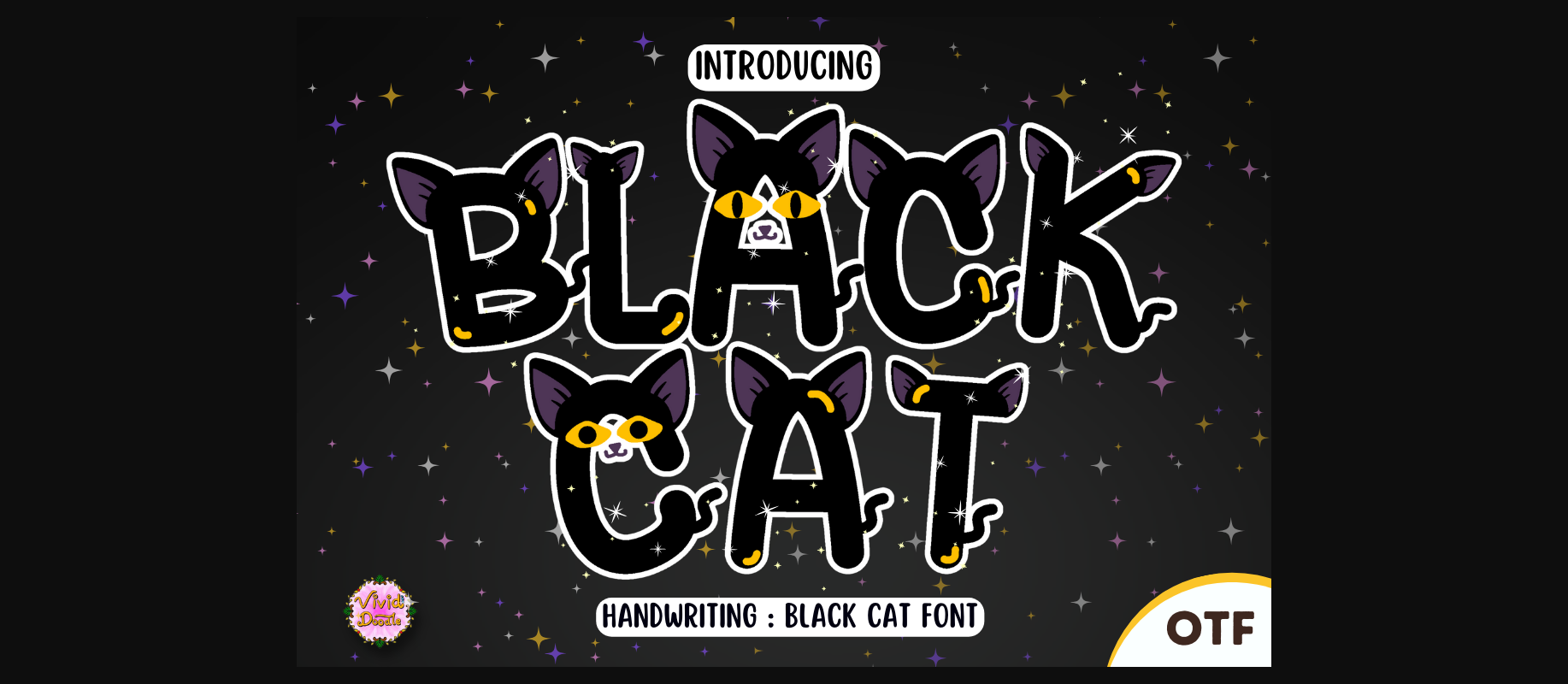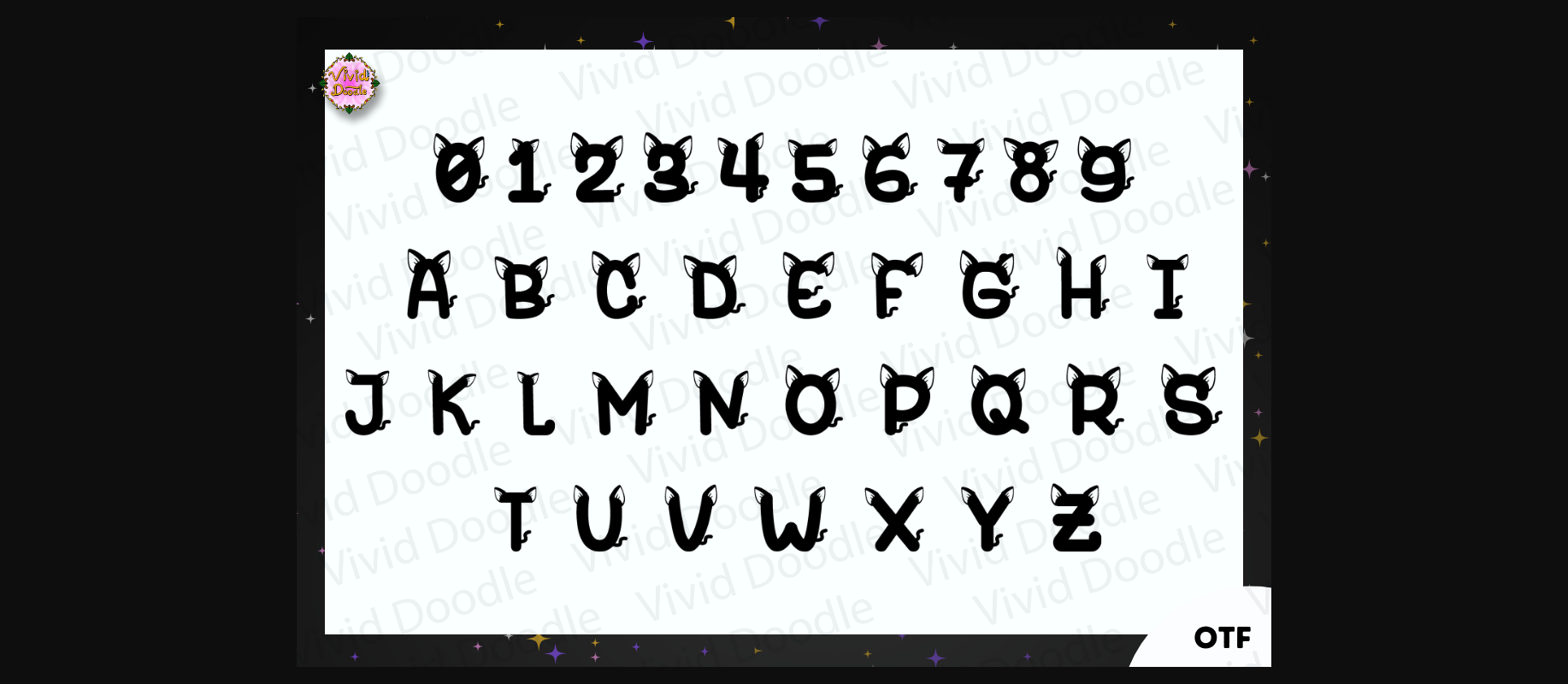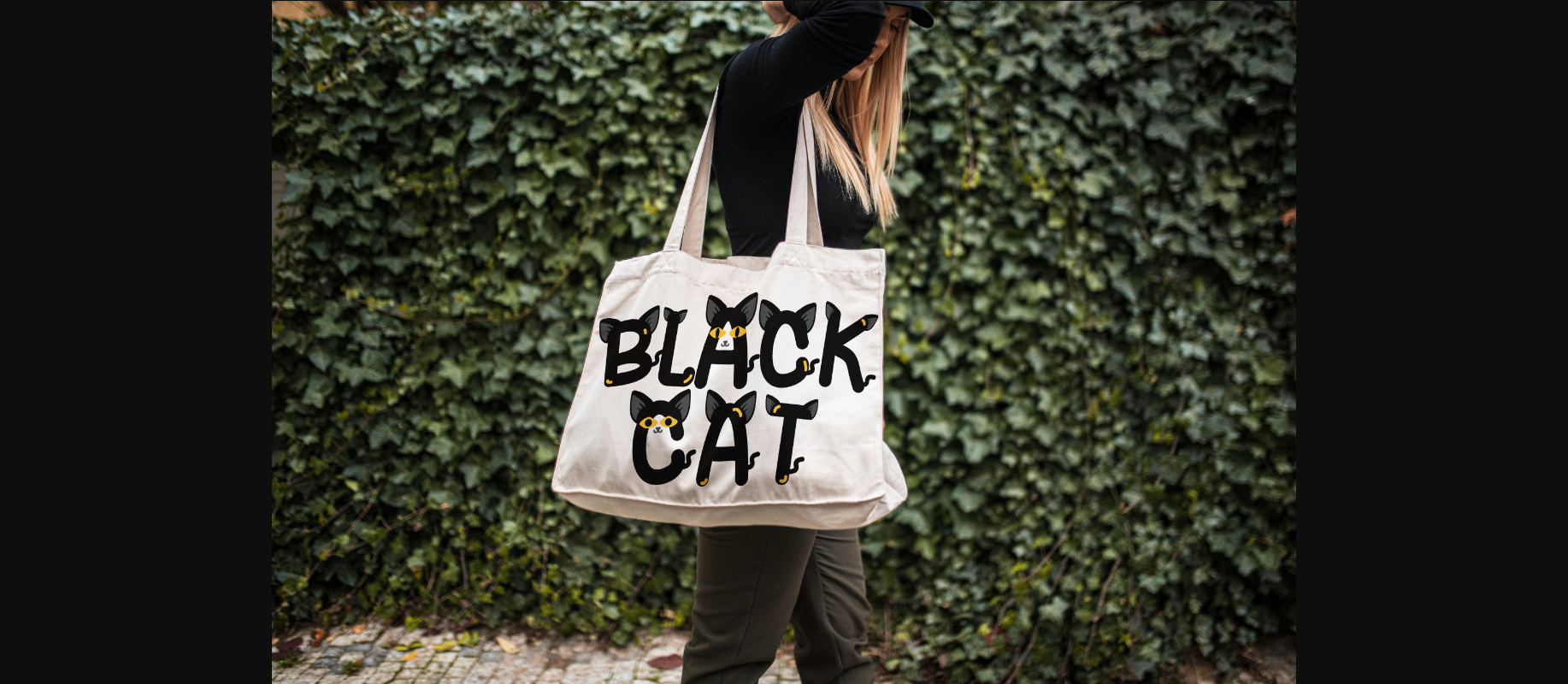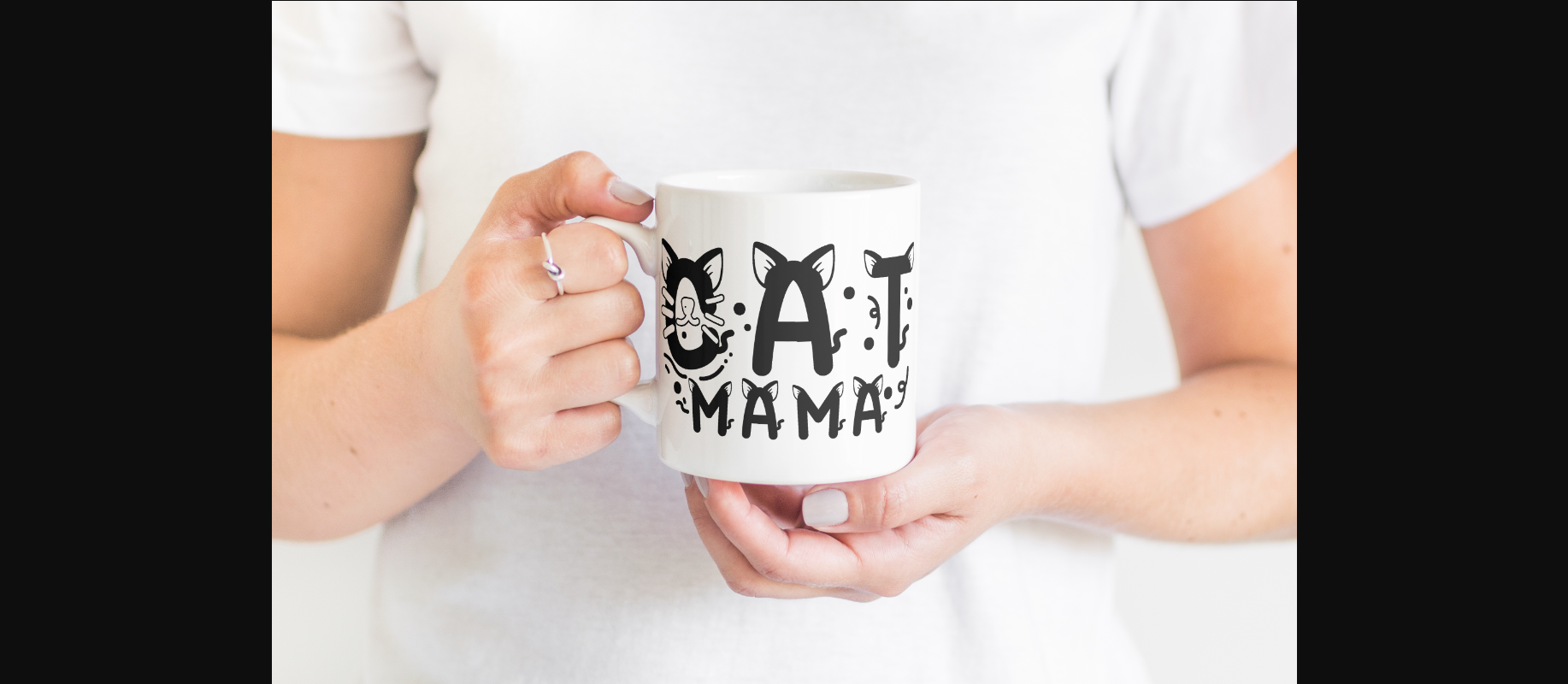
About Black Cat Font
Meet Black Cat, the cutest decorative font around! This playful typeface comes with adorable cat ears and a sweet little tail, adding a touch of charm to your projects. Perfect for anything that needs a sprinkle of whimsy, Black Cat is your go-to choice for a delightful and fun design. Let the feline-inspired details bring a smile to your audience, making your creations irresistibly charming!